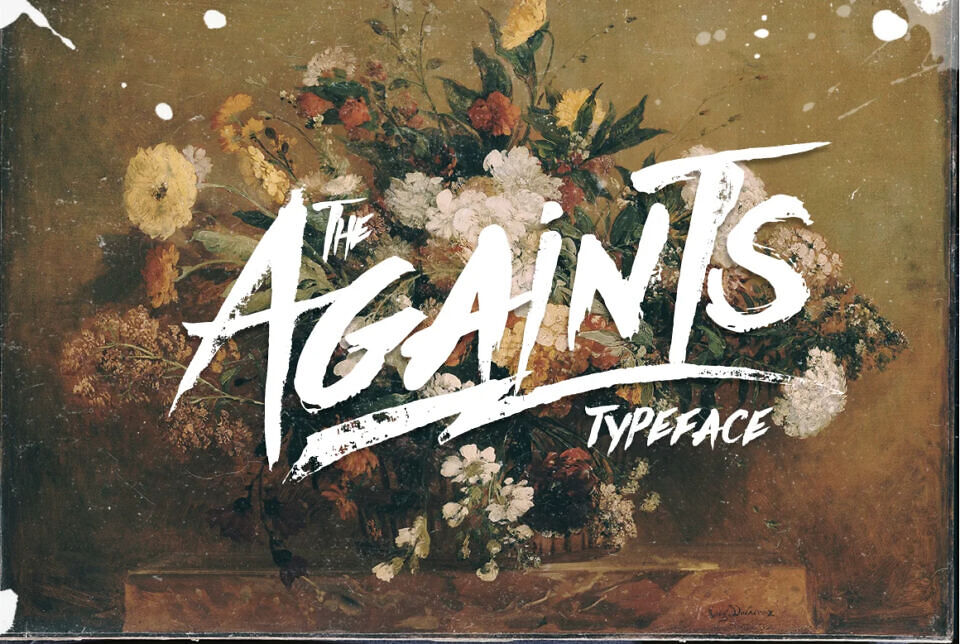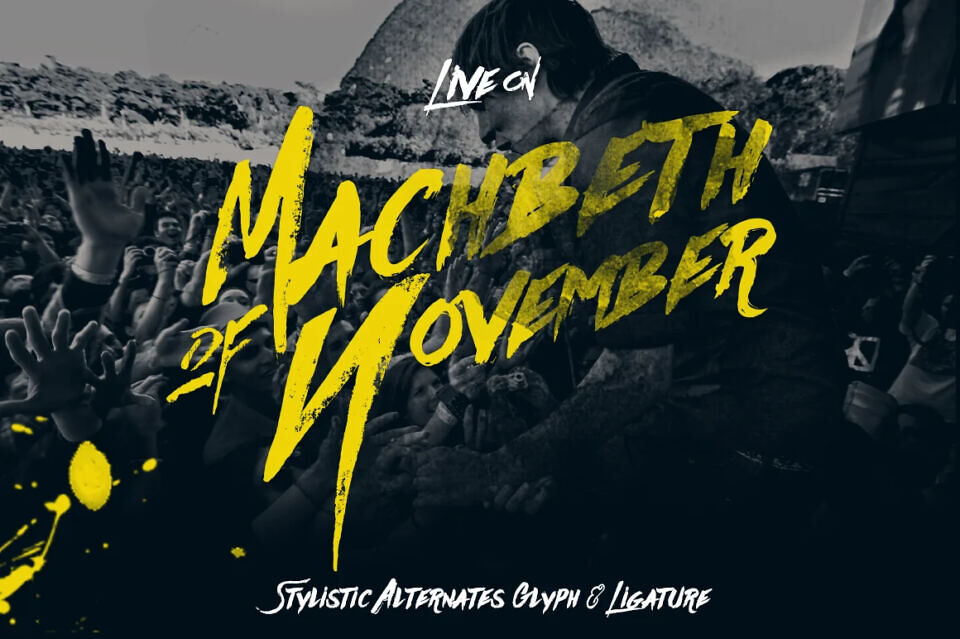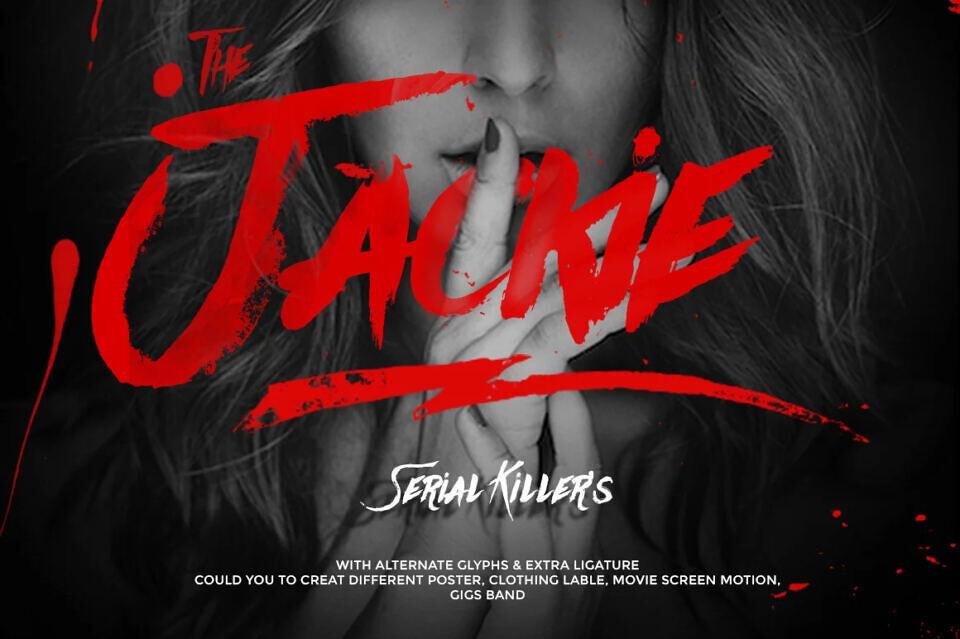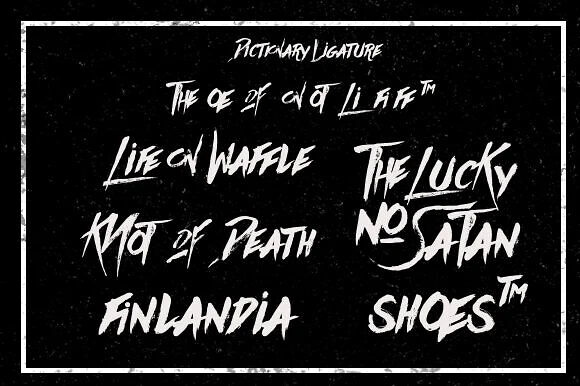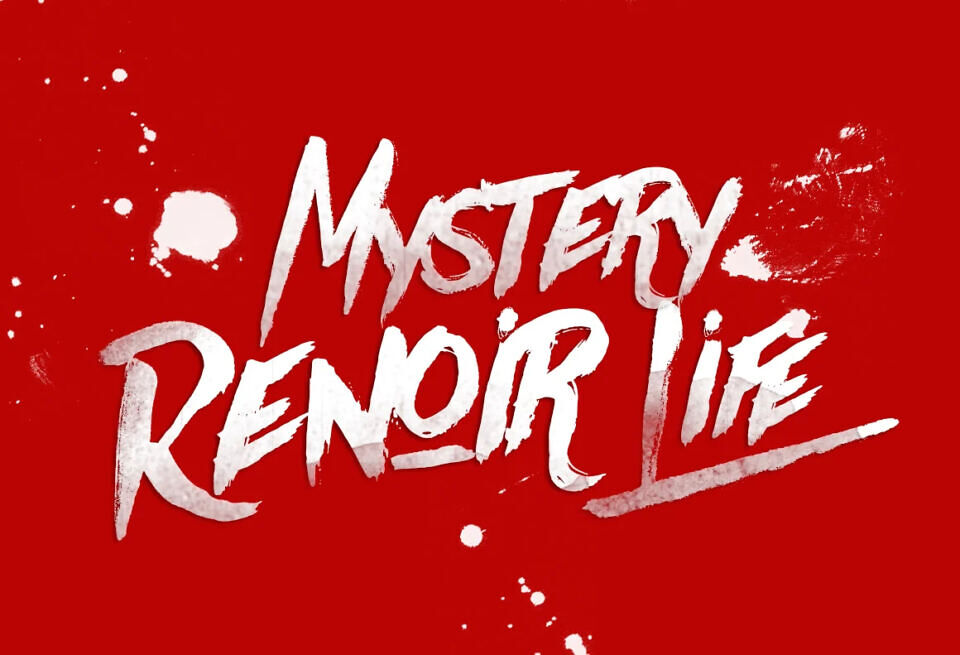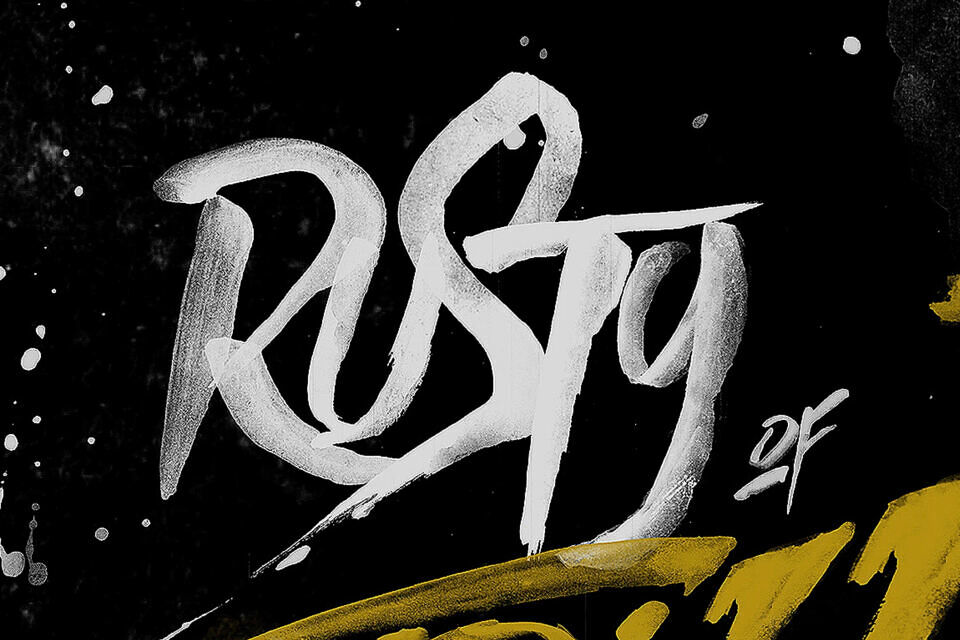
Againts Typeface is modeled after handmade brush strokes with ink and tints, creating a naturally messy look. With alternate glyphs and extra ligatures, it’s perfect for adding a stylish touch to designs. Ideal uses include labeling, clothing, movie titles, posters, and album covers, where a unique hand-drawn display is desired.